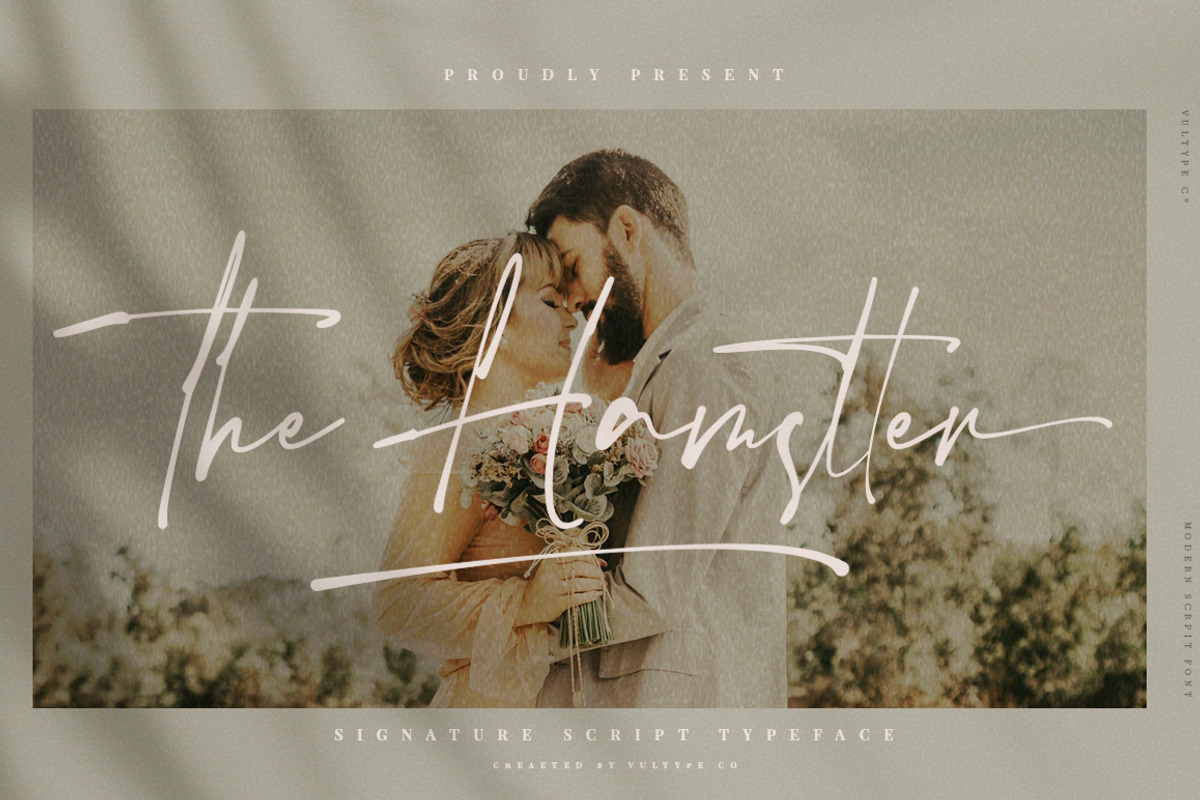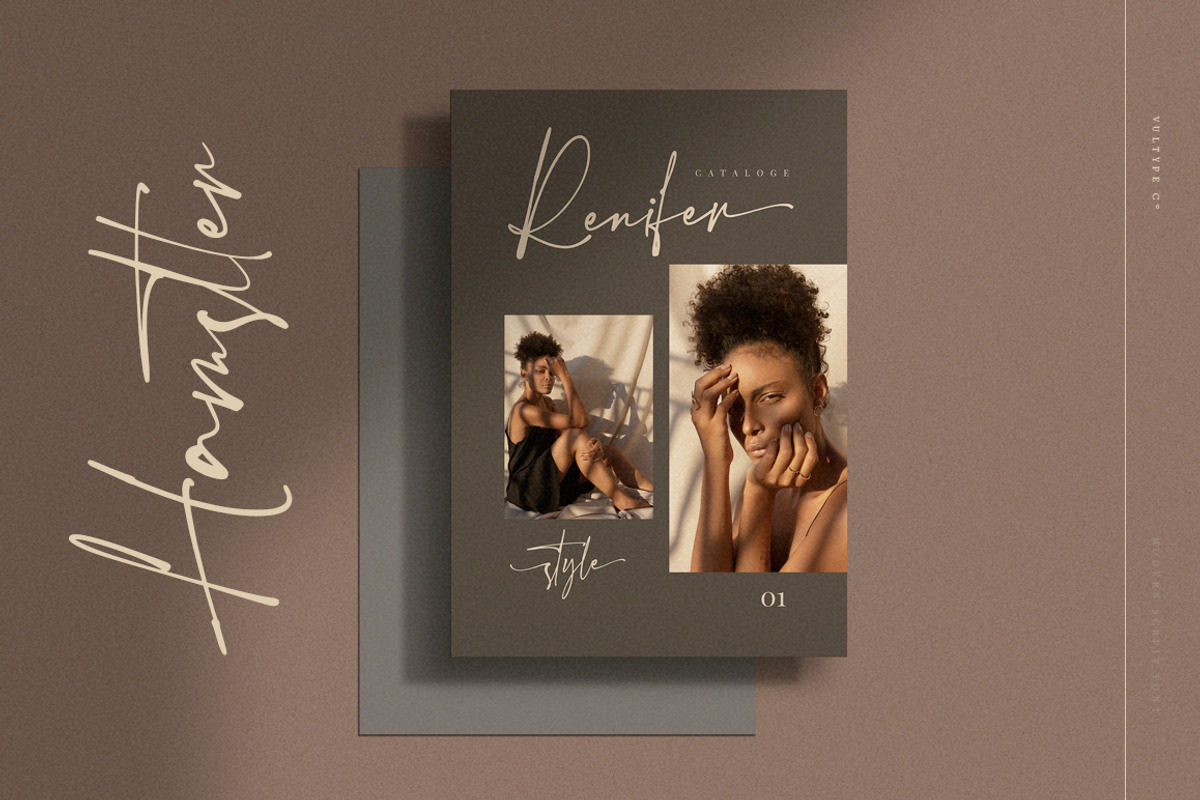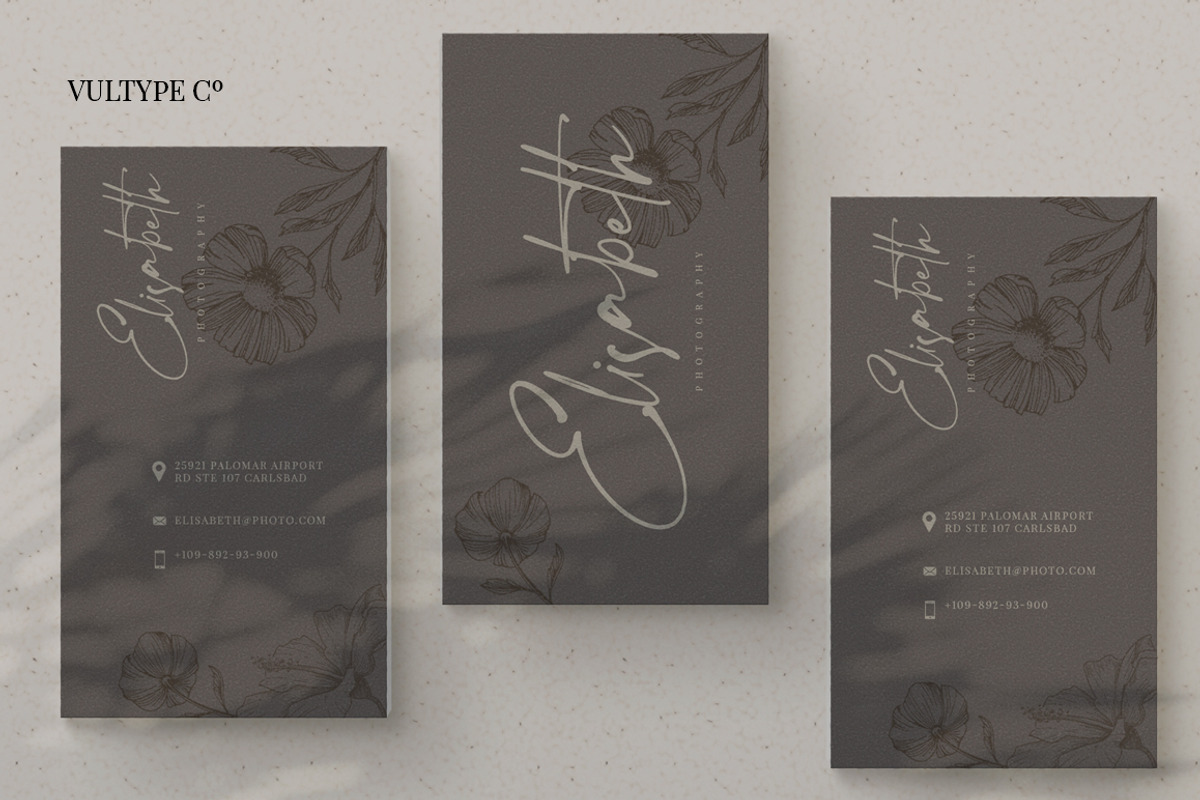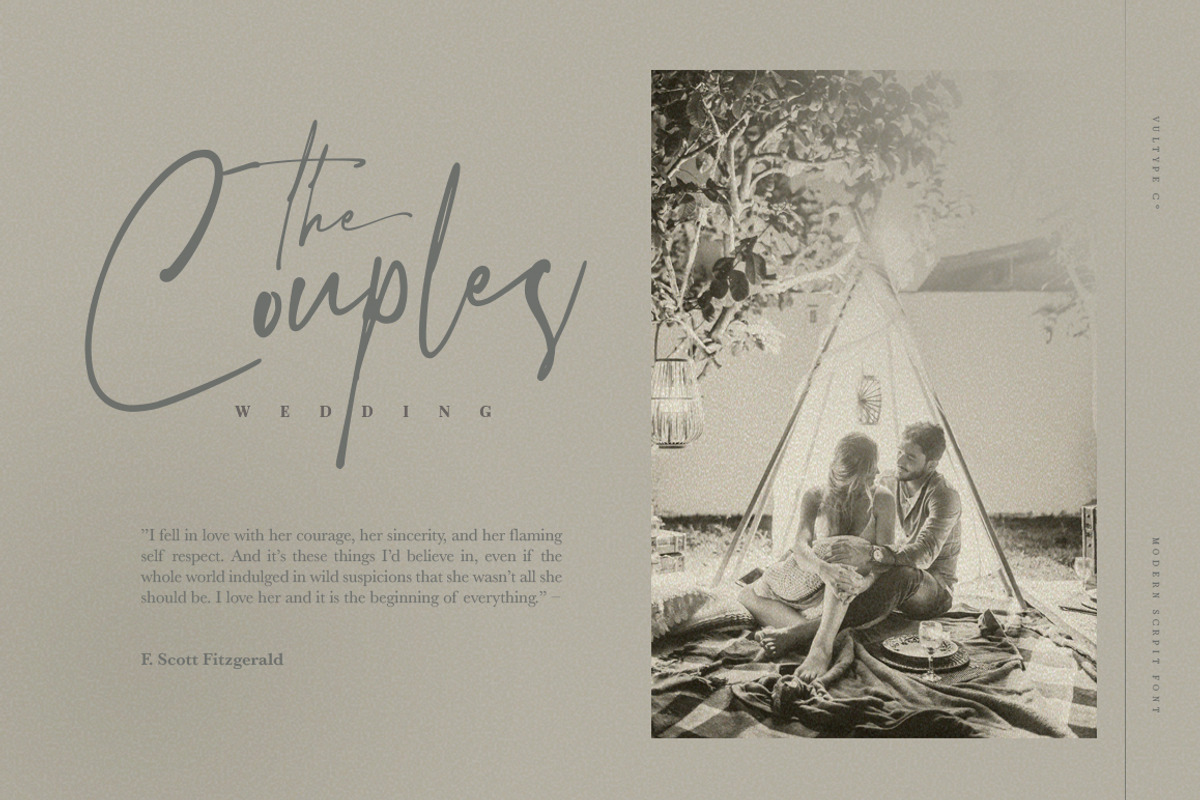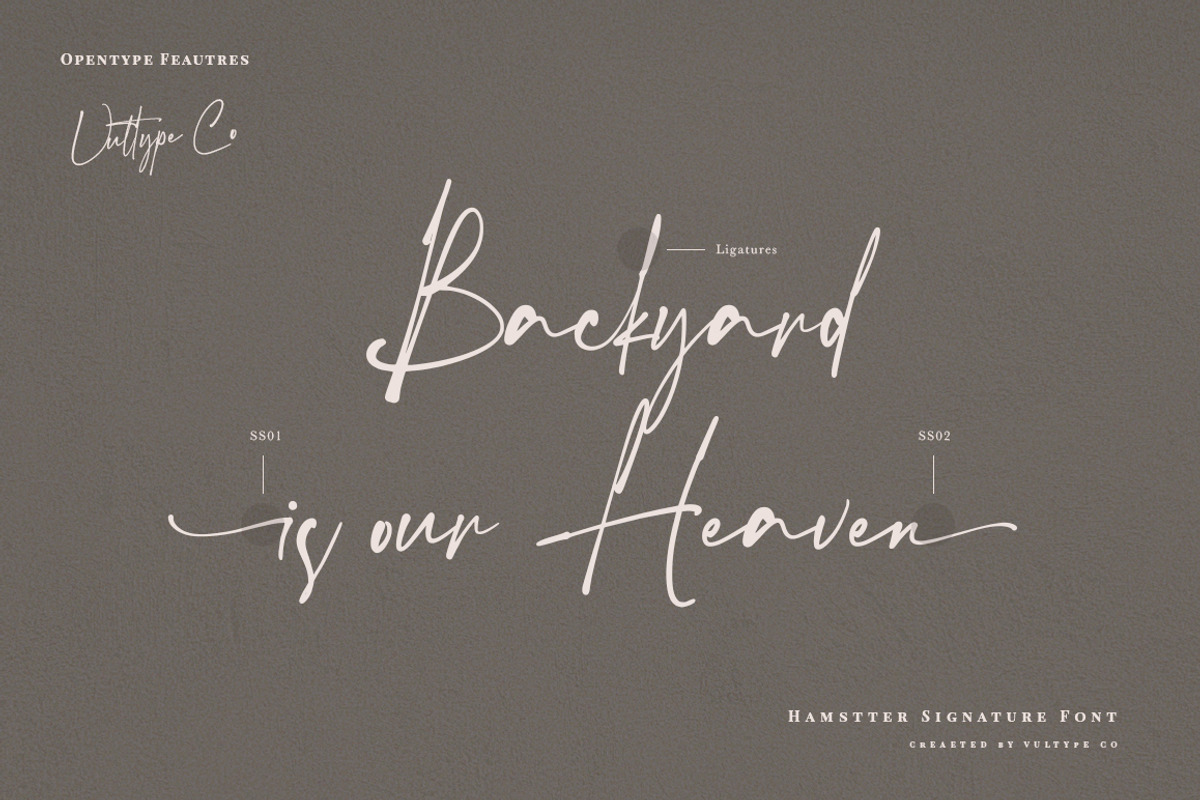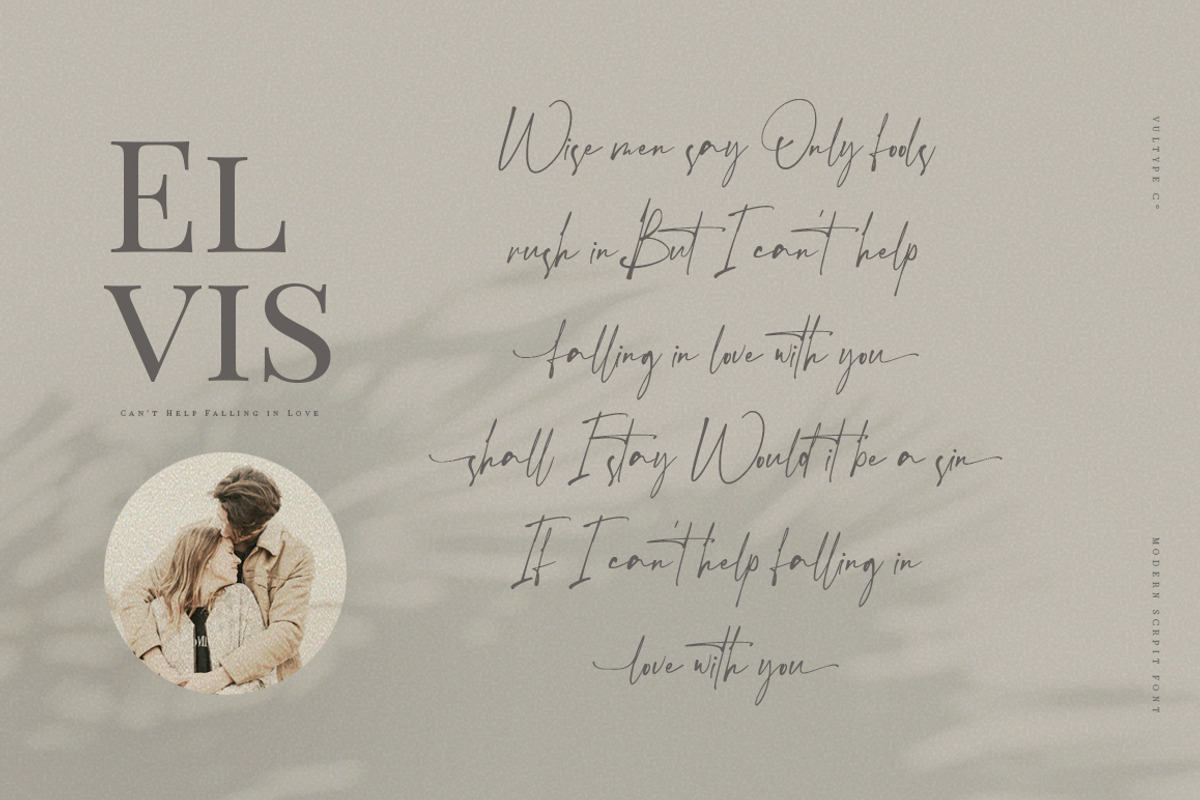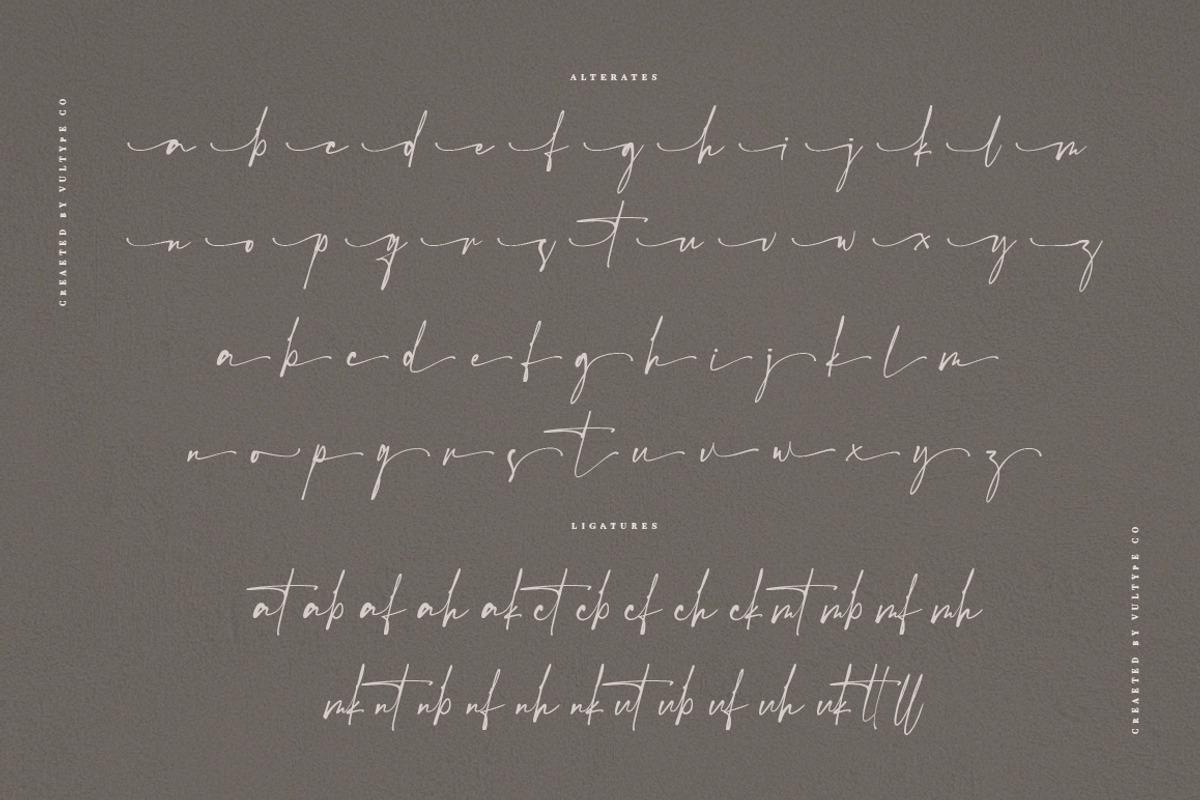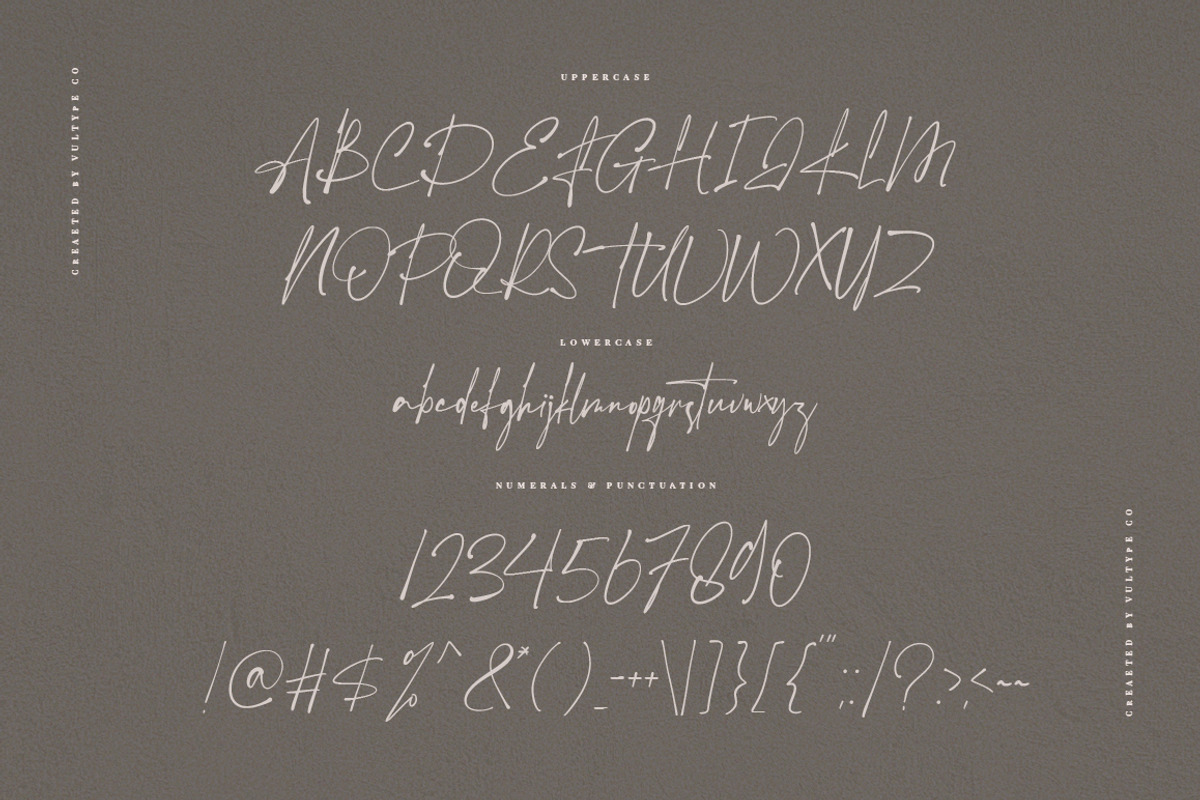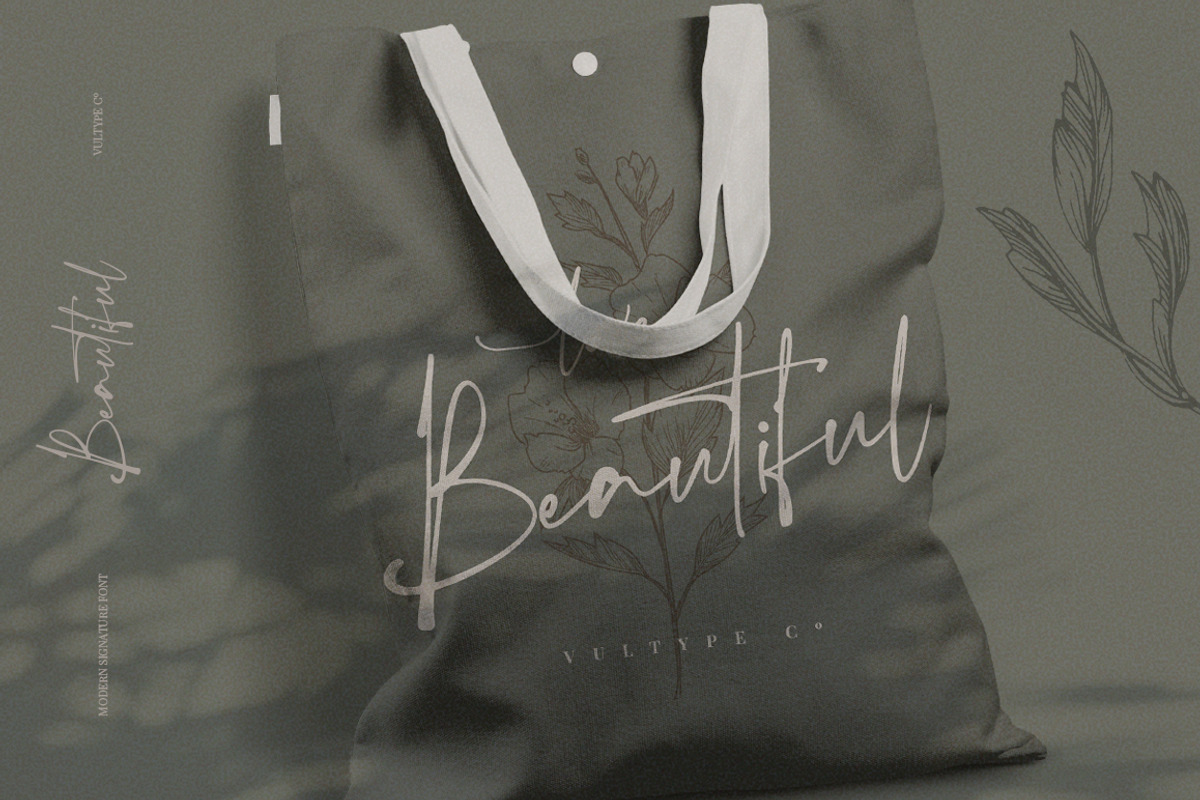
The Hamstter Signature Font
The Hamstter is signature handwritten font, relaxed and timeless. Employ it to each of your creative designs and notice how they come alive!
- Uppercase + Lowercase Letters
- Numbers + Punctuation
- Ligature Feature
- OpenType features